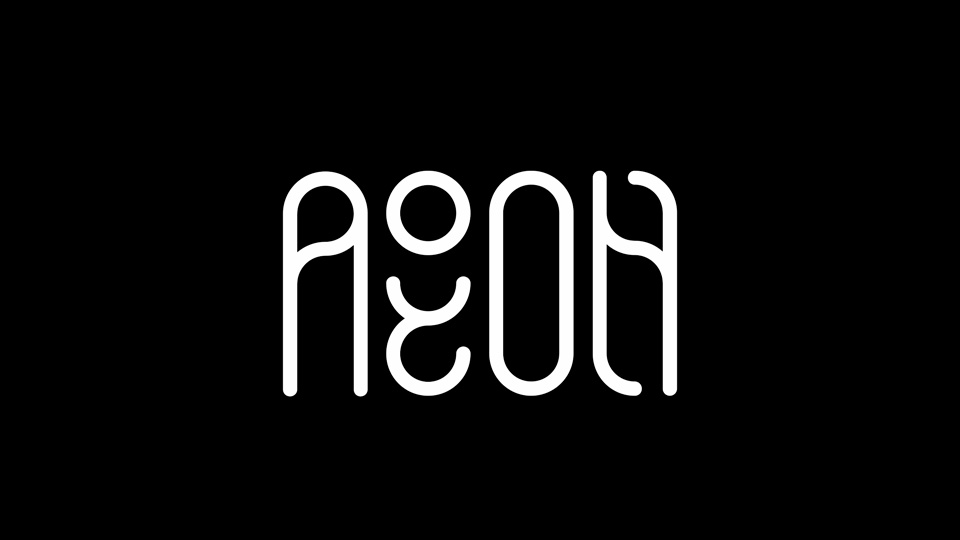
Aion is a unique display typeface with original characters based on circular shapes. Its geometric and unusual letterforms give a feel of modernity and individuality.
Aion is indicated for display designs, on titles and short texts.